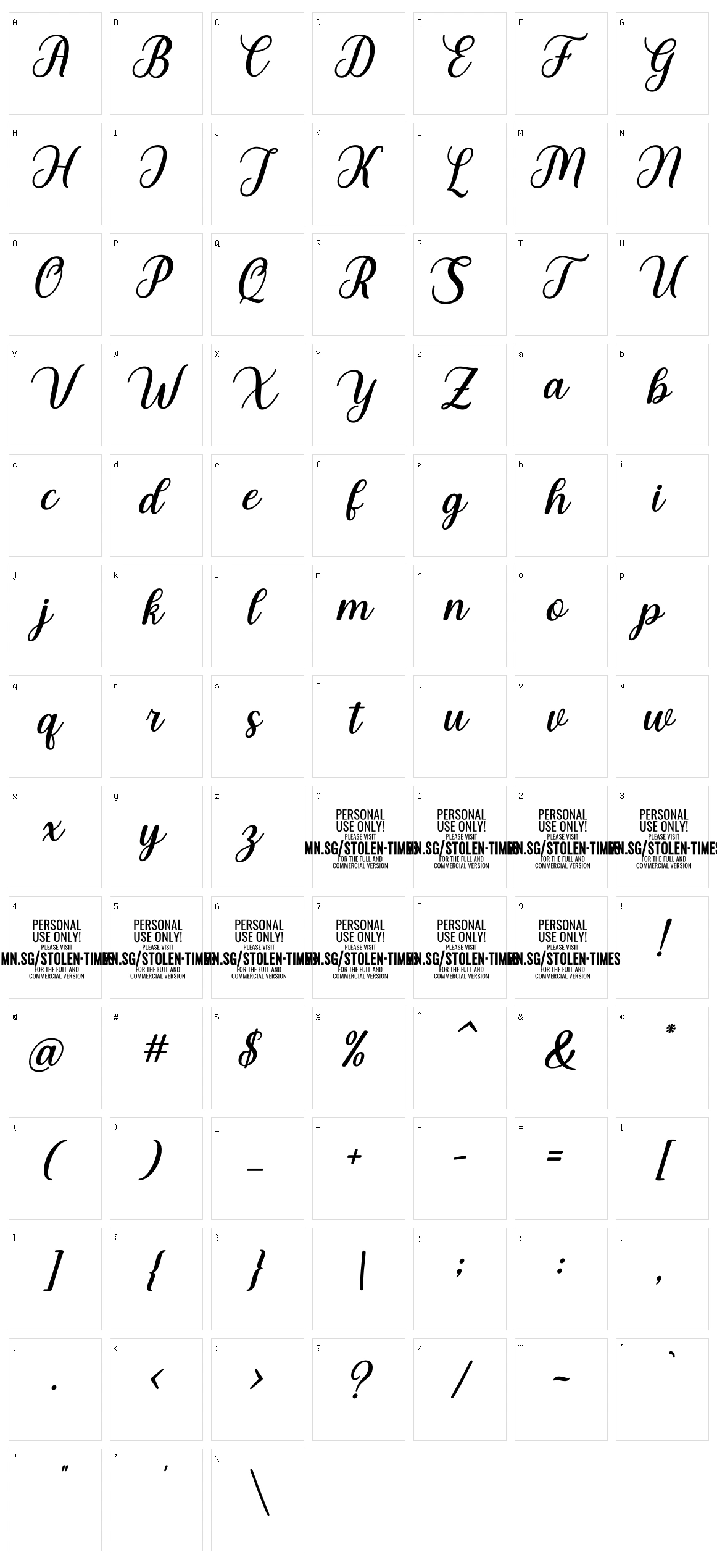
Stolen Times, designed by Mans Greback, is a cute and quirky handwriting font that exudes a light-hearted and naive charm. With its hand-crafted appearance and calligraphic touch, this font brings a sense of warmth and personal connection to your design projects. Perfect for craft, homemade items, or simply adding a playful touch to your work, Stolen Times is a delightful and unique typeface.
The font is built with advanced OpenType functionality and has a guaranteed top-notch quality, containing stylistic and contextual alternates, ligatures, and more features; all to give you full control and customizability. It has extensive lingual support, covering all Latin-based languages, from Northern Europe to South Africa, from America to South-East Asia. It contains all characters and symbols you'll ever need, including all punctuation and numbers.
Mans Greback is a Swedish typeface designer, known for his ability to create fonts that evoke emotions and capture the essence of their themes. His dedication to the craft and attention to detail is what makes his fonts widely used and appreciated by designers worldwide.